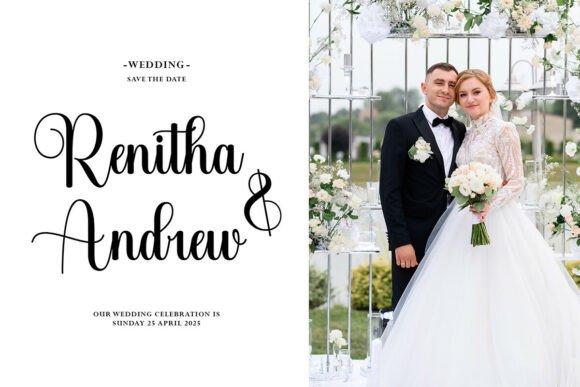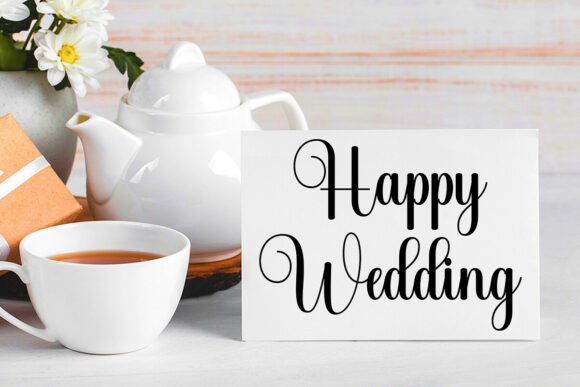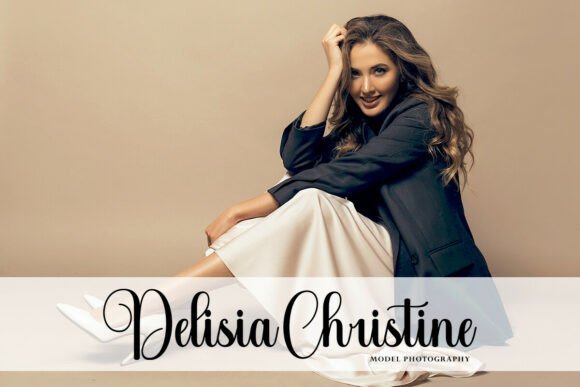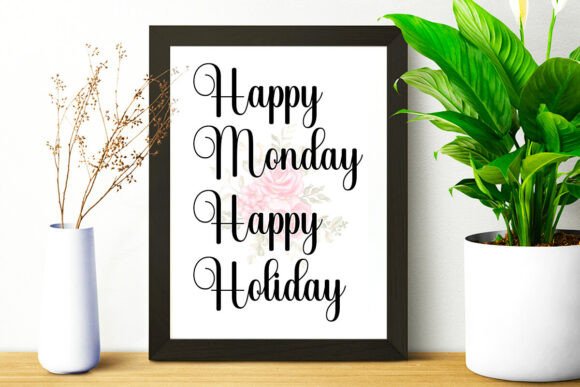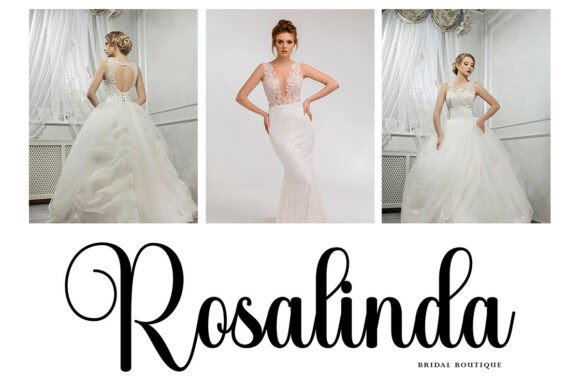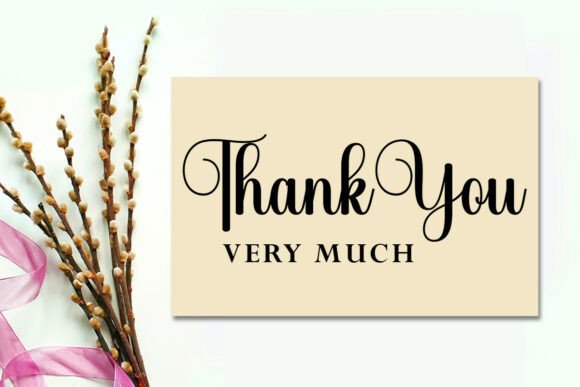
The Sweetest Touch for Your Designs
Have you ever stumbled upon a font that makes your heart skip a beat? For designers, that perfect font can elevate an entire project from good to great. I recall the moment I discovered the Honey Font – a sweet and cursive handwritten font that left me in awe. Its gentle curves and playful charm had me envisioning a world of romantic weddings, whimsical greeting cards, and fashion-forward campaigns.
The Honey Font is more than just a pretty face; it’s a versatile tool designed to add a touch of joy and sophistication to any design project. Whether you’re creating a branding identity, a wedding invitation, or a marketing promotion, this font is sure to bring a smile to your audience’s faces. With its elegant yet casual vibe, the Honey Font is a valuable addition to any designer’s toolkit.
Honey Font Key Features
- Unique Characteristics: Honey Font features a distinctive, hand-drawn style with a mix of modern and vintage elements, making it perfect for designs that require a touch of whimsy and sophistication.
Honey Font Review
I recently had the chance to work with the Honey Font, and I must say it’s a sweet addition to any design project. ✨ The font’s friendly, approachable feel makes it perfect for creating welcoming and inclusive designs. It’s great for headers, titles, and even body text when you want to add a touch of warmth to your content.
The Honey Font comes with a wide range of weights and styles, giving you the flexibility to create different moods and atmospheres. Whether you’re going for a bright and cheerful or a soft and subtle look, this font has got you covered. ✨ It also pairs well with a variety of other fonts, making it easy to incorporate into your design workflow.
- ⚠️ Limited support for some languages: While the Honey Font is available in multiple languages, it may not support some of the more exotic or less commonly used languages.
- ⚠️ Not ideal for formal or technical content: The Honey Font’s friendly feel may not be the best fit for formal or technical content, where a more serious and professional tone is required.
Overall, the Honey Font is a great choice for designers looking to add a touch of warmth and personality to their projects. While it may have some limitations, its versatility and range of styles make it a valuable addition to any design library.
Honey Font is ideal for:
1. Food and beverage branding.
2. Wedding invitations and stationery.
3. Children’s book illustrations.
4. Social media graphics and advertising.
Alternatives to Honey Font
Great Vibes is a beautiful, elegant script font perfect for adding a touch of sophistication to your designs. It’s ideal for use in logos, invitations, and other creative projects where a soft, cursive look is desired.
Compared to Honey Font, Great Vibes has a more refined and polished appearance, making it suitable for high-end designs. It’s also more versatile and can be used in a wider range of contexts.